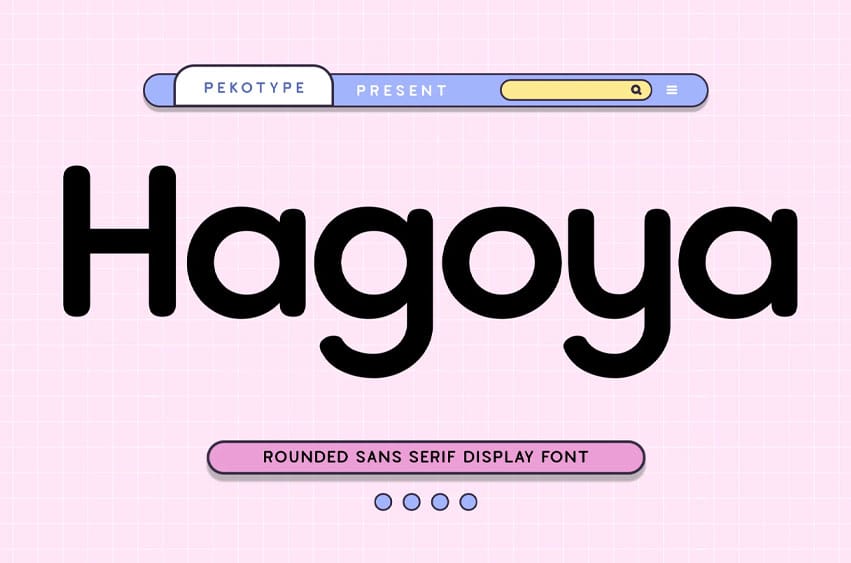
Hagoya Font Rounded Font. Hagoya is a rounded sans serif font with soft, simple shapes and a playful feel. Its clean and friendly look makes it easy to use for designs that need to feel fresh, fun, and easy to read.
Perfect for branding, logos, café and food projects, packaging, posters, social media, websites, invitations, music graphics, and kids designs. Hagoya is also great for everyday creative projects that need a cute and modern touch, with uppercase, lowercase, numerals, punctuation, and multilingual support.